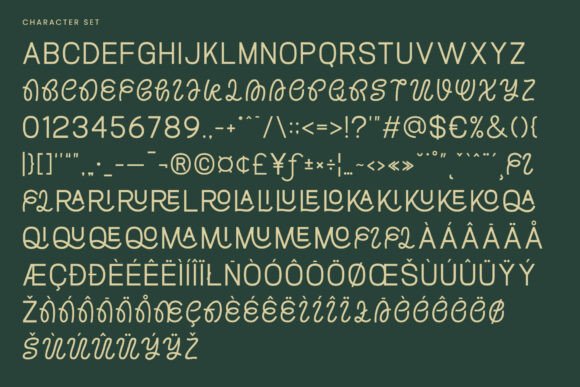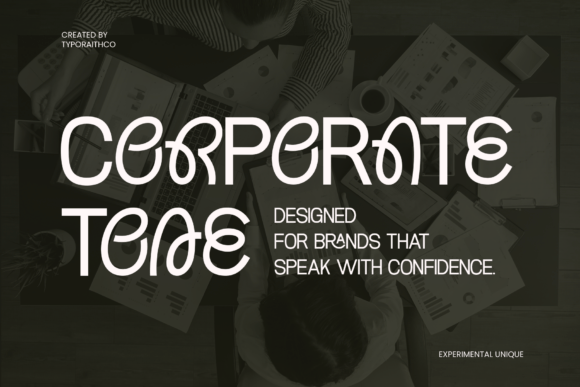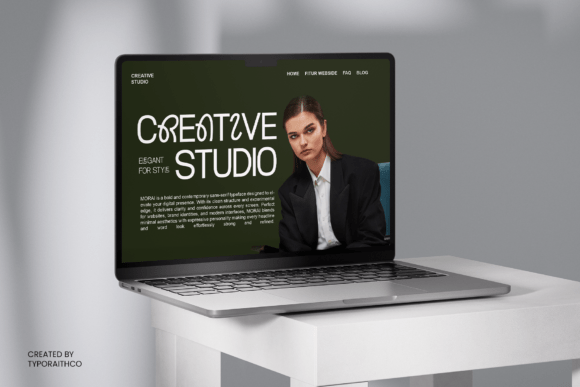
Introduction to Morain Display Font
Morain Display is an experimental font family that blends modern geometry with artistic curves, creating a bold and distinctive visual statement.
Designed to stand out, this typeface is perfect for branding, editorial design, posters, packaging, and creative headlines Each letter in Morain Display carries a unique rhythm — balancing clean lines with playful strokes.